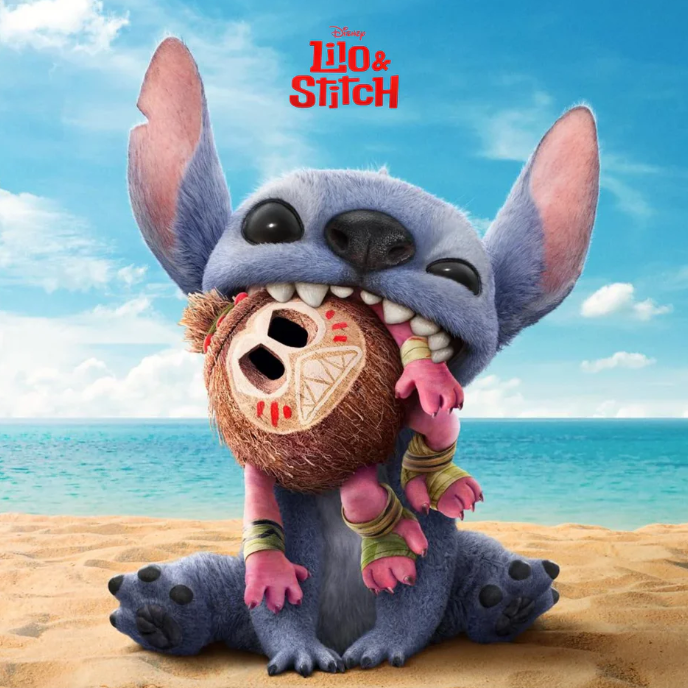
Lilo and Stitch Font is pivotal in the branding aspect as it determines the mood of communication. One font that has fascinated the designers and the Disney fandom is the Lilo and Stitch font. Following the memorable animated movie, this typeface is humorous and carefree capturing the spirit of a tropical island and relates with professional designers as well as hobbyists.
Because of its exceptional lettering, it has gained fame in branding, and social media graphics as well as in personal DIY undertakings.
What is Lilo and Stitch Font?
The Lilo and Stitch Font takes it inspiration from the lettering style done in the Disney animated movie Lilo & Stitch. It embraces the movie’s Hawaiian motif using strokes which are casual, hand drawn, irregular and fun. The rugged font style is fascinatingly captivating.
Disney has not endorsed any version of the font, however, many fans have created custom fonts that are available on the internet, attempting to imitate the movie’s font. These fonts are popular among designers and fans alike for themed designs, invitational cards, and souvenirs.
Features of Lilo and Stitch Font
1. Hand-Drawn, Playful Look
The Lilo and Stitch Font features an organic, slightly uneven style, giving it a relaxed and whimsical feel.
2. Bold and Irregular Letterforms
The lettering is thick and slightly rough around the edges, adding to its unique appeal.
3. Versatile Usage
Perfect for branding, marketing materials, social media graphics, and print designs.
4. Available in Different Styles
Some fan-made versions include bold, italic, and outline variations.
5. Multilingual Support
Depending on the version, the font may support multiple languages, making it accessible to a broader audience.
Applications of Lilo and Stitch Font
The Lilo and Stitch Font is perfect for a variety of creative projects, including branding, social media graphics, merchandise, and DIY crafts, adding a fun and tropical touch to any design.
1. Branding & Logo Design
Businesses with a fun, tropical, or family-friendly theme can use this font to create a unique and eye-catching brand identity.
2. Merchandise & Print Media
Commonly used for posters, T-shirts, greeting cards, and fan art, this font adds a playful touch to physical and digital products.
3. Social Media & Content Creation
Ideal for YouTube thumbnails, Instagram posts, and digital ads, the font helps create visually engaging content.
4. Personal & DIY Projects
Popular among crafters for scrapbooking, party invitations, and homemade decorations.
Conclusion: Lilo and Stitch Font
The Lilo and Stitch Font is a fantastic choice for designers looking to add a playful, tropical touch to their projects. Whether you’re working on branding, social media, or DIY crafts, this font captures the spirit of the beloved Disney classic.